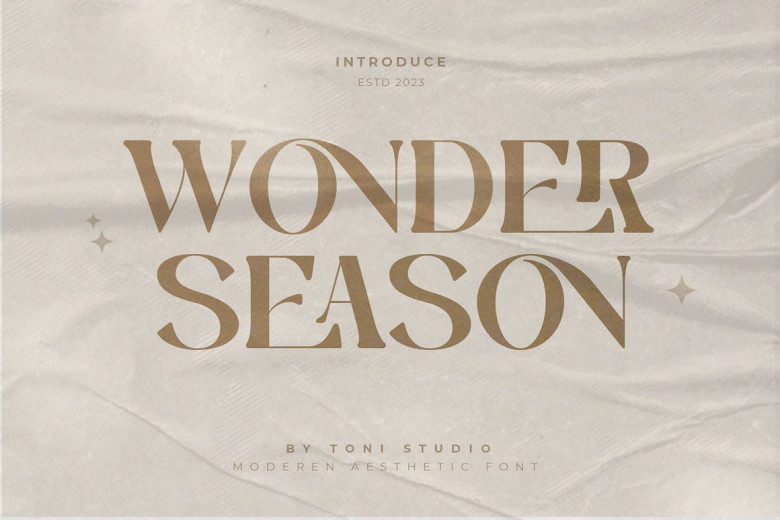
Wonder Season Font
Wonder Season is an attractive and modern serif font designed to evoke the 60’s groovy style with an added modern feel. This font can help complete various tasks such as luxurious brands, logos, journals business cards title products as well as social media posts websites with its contemporary appeal that make these designs stand out.
Wonder Season Serif Font